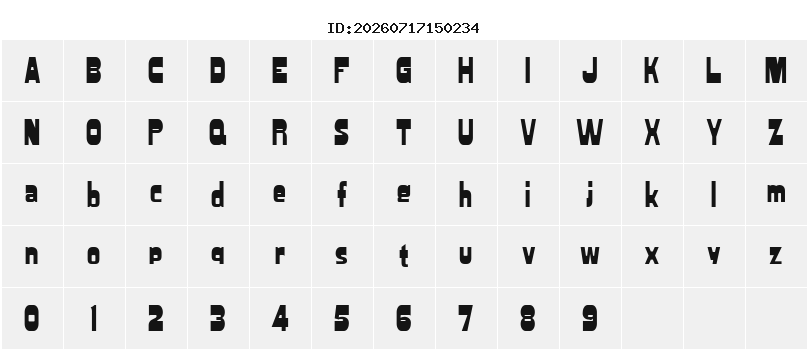
• Font Name: Blacktop
• Full Font Name: Blacktop
About Blacktop.ttf
Blacktop.ttf is a modern, elegant sans-serif font designed for ultimate readability and visual harmony. Perfect for branding, headlines, web design, and print materials.